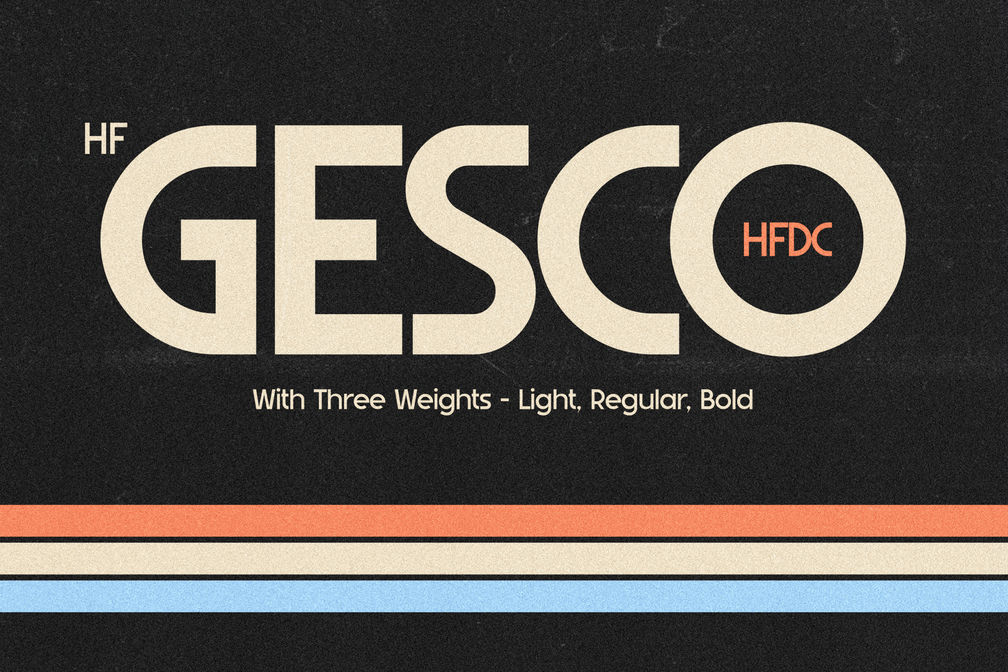
HF Gesco Family – Retro Sans Serif
HF Gesco is a variable font with 3 weights, Light, Regular and Bold, a sans serif font inspired by 90s style music posters and album covers. The Gesco font has 967 glyphs, supports almost 100 languages and is equipped with number symbols such as superior numbers and inferior numbers, as well as circular numbers. Apart from that, HF Gesco also has arrow characters that can sharpen your design. You also find alternative characters as choices for the letters A, E, I, O, M, N, and U. This retro style font is suitable for poster designs, online magazines, headlines, logo types, and etc.
• Uppercase
• Lowercase
• Number
• Alternates
• Currencies Symbol
• Arrows Symbol
• Multilingual Support